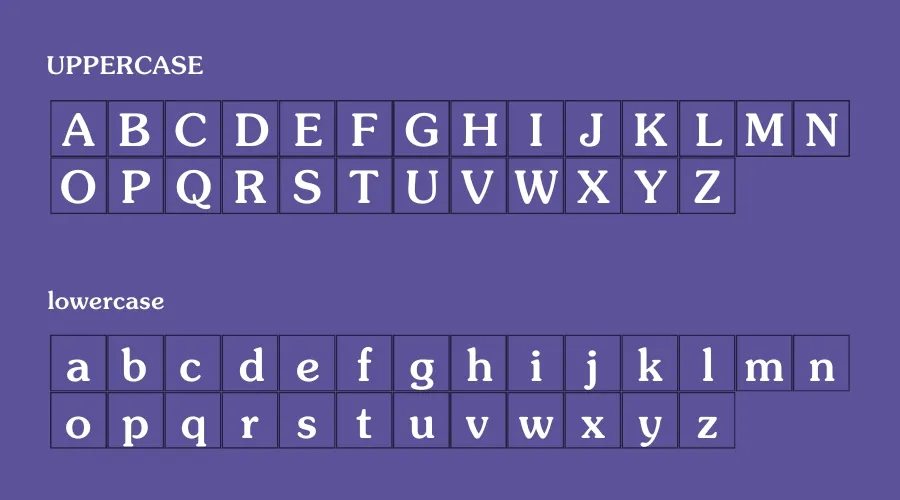
Souvenir Font
About Souvenir Font
The Souvenir Font is under the category of the serif typeface family and was developed by a famous graphic designer known as the name of Morris Fuller Benton. It was published by American Type Founders in the year 1914 and you can get its free version from this website without any hassle.
It is best for CSS and adobe photoshops. The subfont family of this texture is regular and includes unique types of characters such as symbols, signs, uppercase letters, lowercase letters, numerals, and multiple other special forms of the alphabet set.